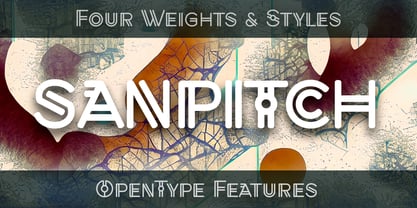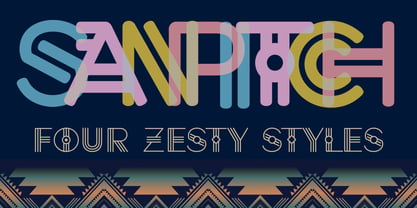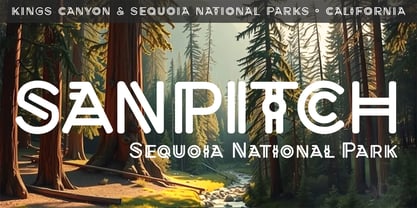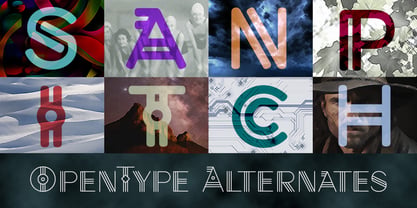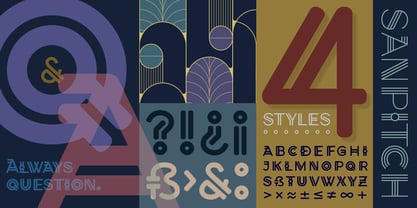
Sanpitch
by Cory Maylett Design
The Sanpitch Font Family was designed by Cory Maylett and published by Cory Maylett Design. Sanpitch contains 4 styles and family package options. More about this family
Sanpitch is a unique display typeface that started five years ago as a hand-drawn magazine headline. Over the years, as I periodically worked on it, the typeface gradually evolved into something entirely different. The final version is a type family with four weights, each featuring many characters with stylistic differences from the others.
The fonts employ OpenType features such as alternate characters and automatic fraction creation. If your graphics program supports OpenType features, like Adobe and Affinity software do, Sanpitch will automatically replace awkward glyph pairs with more visually pleasing alternatives. Of course, you can turn off this feature in your graphics software or select your own options.
Finally, Sanpitch is named after the area in Utah where I grew up and still maintain a second home.